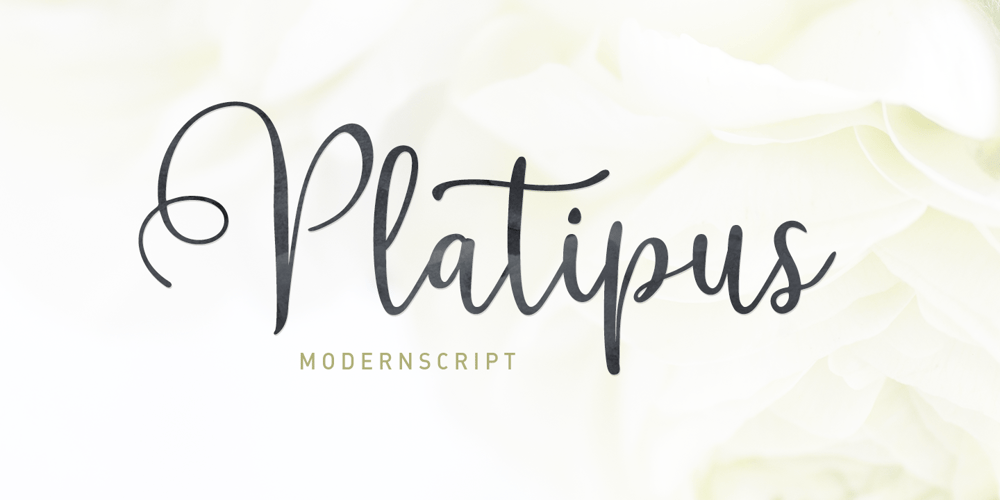
Platipus Script Font Family was designed by Ambia and published by Areatype. Platipus Script contains 1 styles and family package options. Platipus Script A sweet handlettered font, casual and dynamic with a dancing baseline.. all to add an authentic touch to your designs. perfect for Branding, Logos, Greeting Cards, Wedding Stationery, Quotes etc.It comes with a handy set of Opentype Stylistic Alternates, Ligatures and multiple language support. To enable the OpenType Stylistic alternates, you need a program that supports OpenType features such as Adobe Illustrator CS, Adobe Indesign & CorelDraw X6-X7, Microsoft Word 2010 or later versions.Files included:These coded with PUA Unicode. Mac users can use Font Book and Windows users can use Character Map to view and copy any of the extra characters to paste into your favourite text editor/app.How to access all alternative characters, using Windows Character Map with Photoshop:https://www.youtube.com/watch?v=Go9vacoYmBw How to access all alternative characters using Adobe Illustrator:http://youtu.be/iptSFA7feQ0nnThanks so much for looking, I really hope you enjoy it and please don’t hesitate to drop me a message if you have any issues or queries ๐